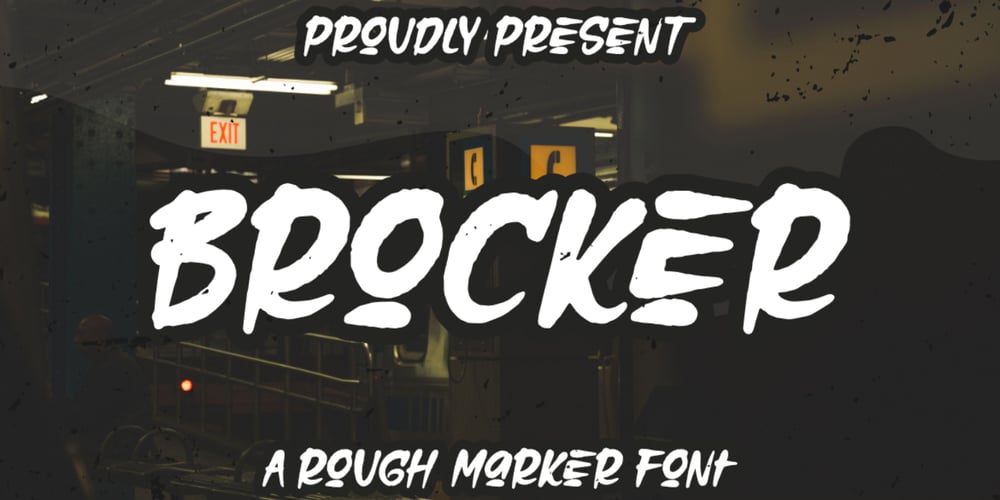
Brocker Marker Font Family was designed by Bayu Aji Fais Mursid and published by Bayuktx. Brocker Marker contains 1 styles and family package options. Hello,Thank you for visiting my products, we will give you the best choice.Brocker a Rough Marker Font, This font is made with a high premium quality level which you can use as flyers, quotes, posters, banners, packaging, merchandise, logotypes and much more.FEATURES :* Uppercase* Lowercase* Number* Punctuation* Multilingual* PUA Encode* OpentypeFILES INCLUDED :* BrockerThank you